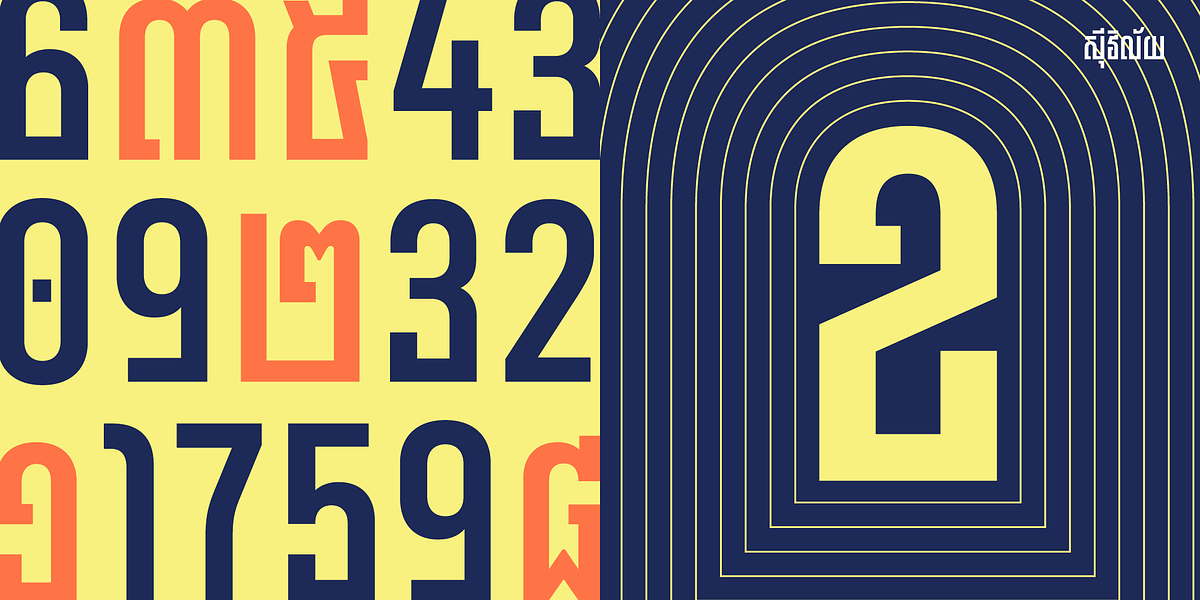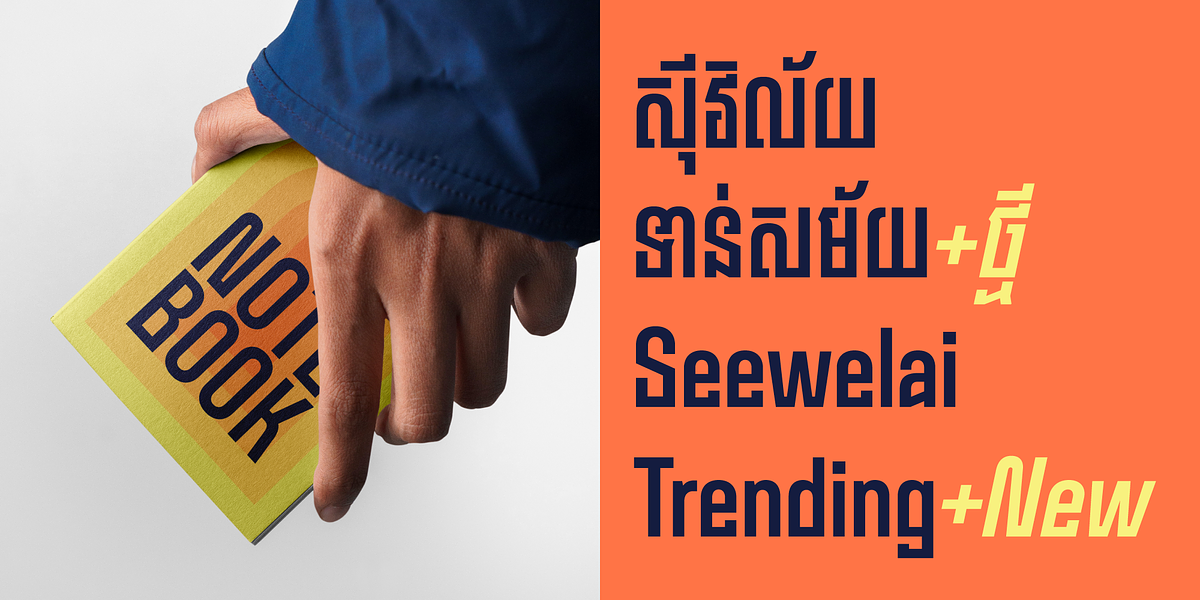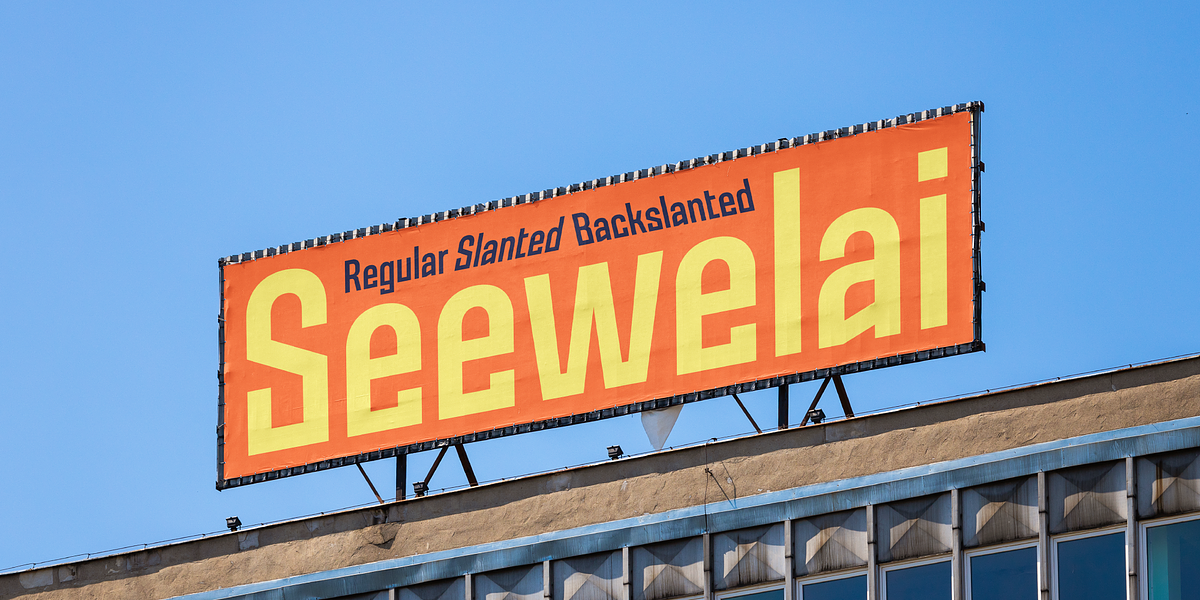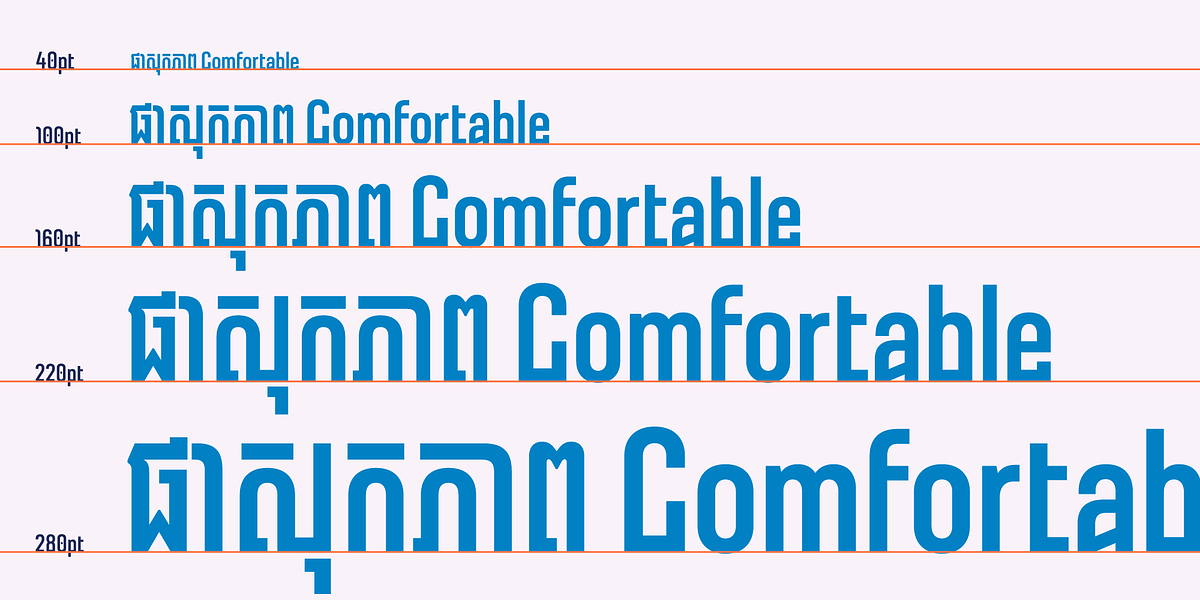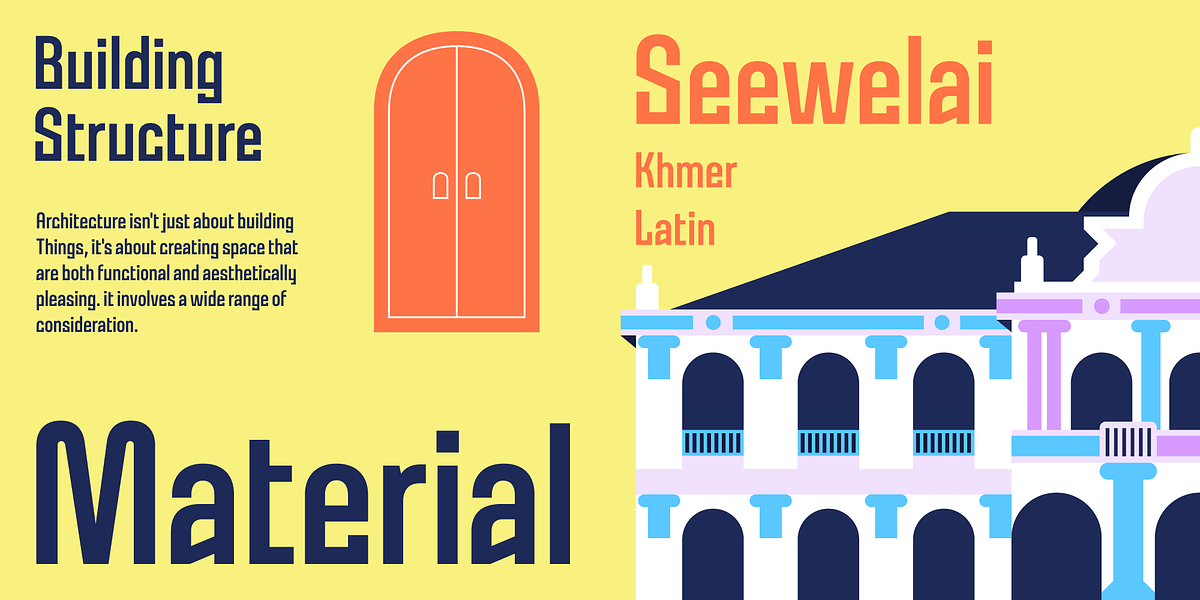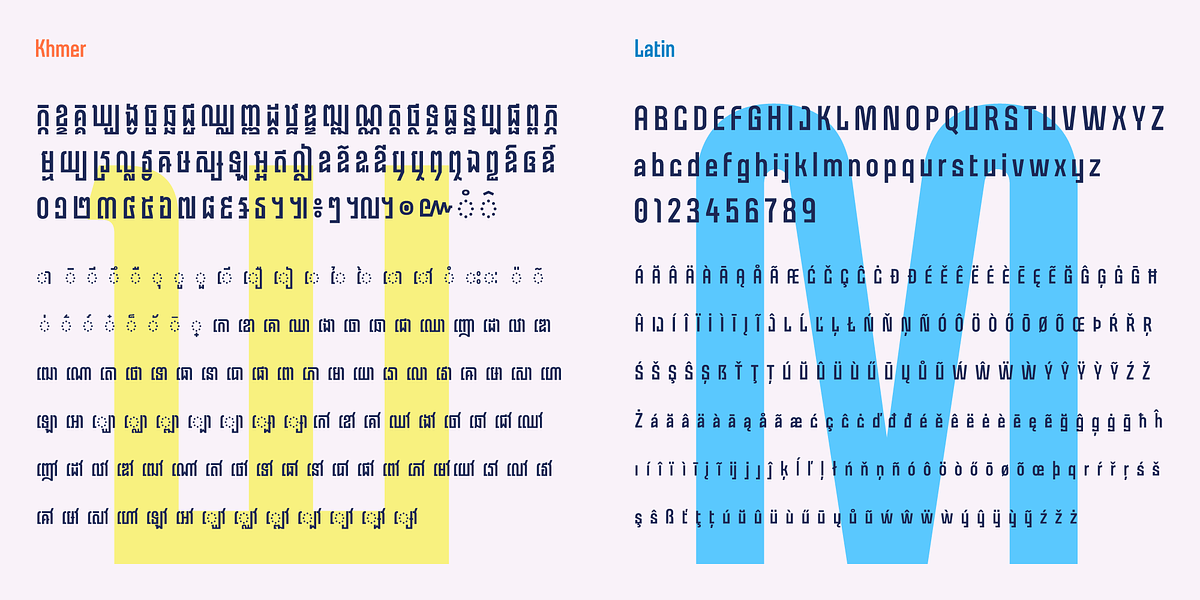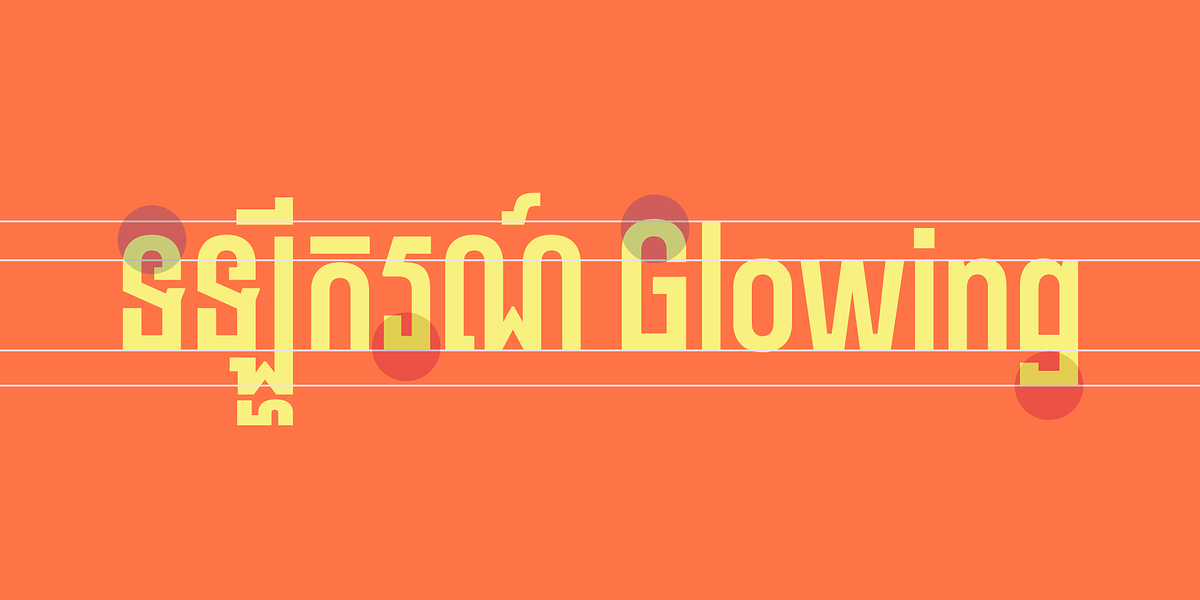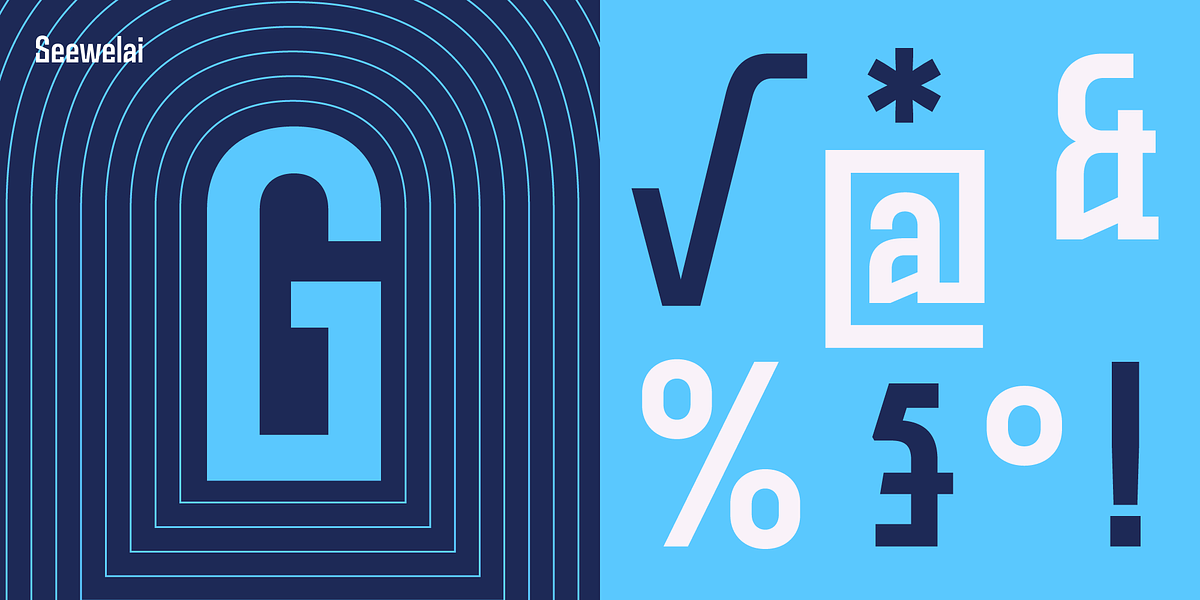
Seewelai — Khmer Font
Seewelai Slanted
Seewelai Regular
Seewelai Backslanted
About Seewelai
Seewelai is a contemporary exploration of geometric harmony in Khmer script design that takes an unconventional approach through systematic methodology, combining circular and rectangular elements to construct most characters from basic geometric shapes—circles and squares, creating a unified condensed letterform system. Seewelai’s experimental design delivers a blend of boldness, geometric precision, and confidence, with condensed and bold letterforms optimized for display applications, making this single-weight family ideal for modern branding needs while providing comprehensive Khmer and Latin character support that offers designers a fresh perspective on traditional script through contemporary geometric principles.
- Designers
- Tep Sovichet, Visith Visal
- Scripts
- Khmer, Latin
- Styles
- 3 styles in family